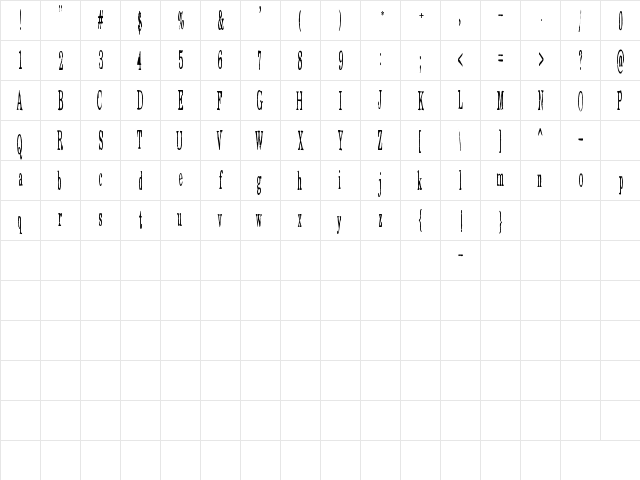
Eat More Chocolate Regular
| Designer | Kimberly Geswein |
Design Context for Eat More Chocolate Typeface
Eat More Chocolate offers clean, dependable letterforms without strong stylistic allegiance, making it a practical choice for designers who need flexibility.